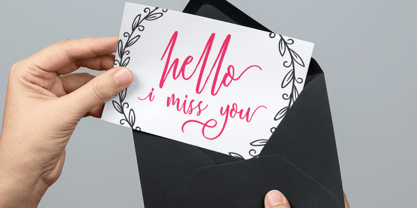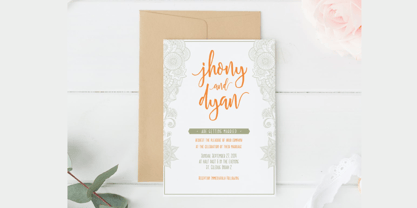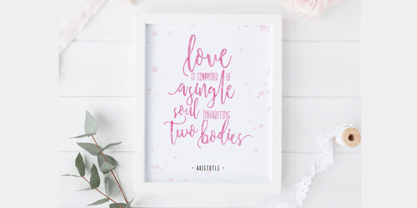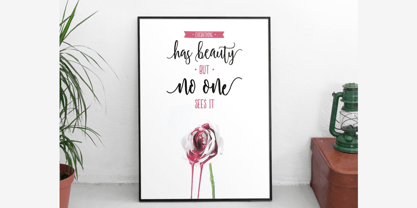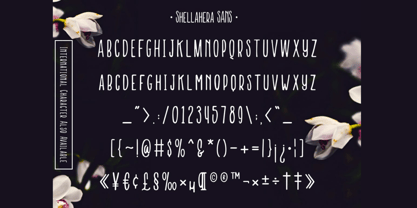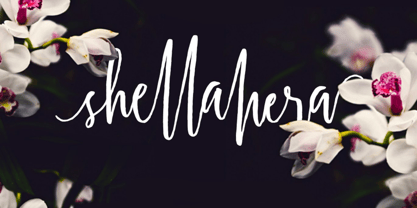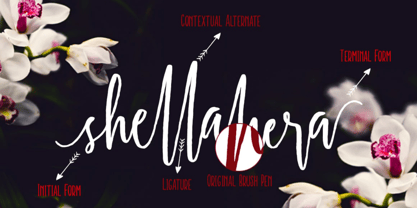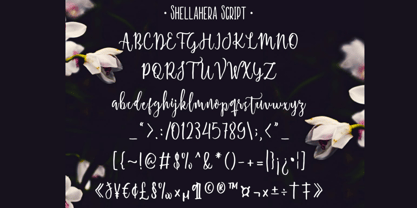
Semla
by Hasnat Studio
The Semla Font Family was designed by Hasnat Khan and published by Hasnat Studio. Semla contains 1 styles. More about this family
Semla is a charming handwritten script font family created with authentic brush pen strokes and captured in high resolution to preserve every organic detail. With its flowing, dancing baseline and handcrafted personality, Semla brings a natural, emotional touch to any creative design. It’s beautiful, personal, and designed to feel like genuine handwriting.
Key Features:
• 3 Font Styles Included – Script, Sans, and Decorative Ornament
• Authentic Handwritten Texture – Created with original brush pen strokes
• Natural Flow & Dancing Baseline – Adds rhythm and personality to your typography
• Extensive Character Set – A-Z, a-z, numerals, punctuation, and accented multilingual characters
Perfect For:
• Branding & Logo Design – Especially for handmade, boutique, or lifestyle brands
• Invitations & Wedding Stationery – Adds a heartfelt and elegant vibe
• Typography Quotes & Social Media Posts – Ideal for emotional, creative expressions
• T-Shirt & Merchandise Design – Stands out on print-on-demand products
• Home Decor & Printable Art – Adds authenticity to decor products and mockups
• Creative Kits & Digital Products – Great for template packs, overlays, and more
Add heart and handmade flair to your design projects with Semla—a font family that captures the warmth and energy of real handwriting.
Designers: Hasnat Khan
Foundry: Hasnat Studio